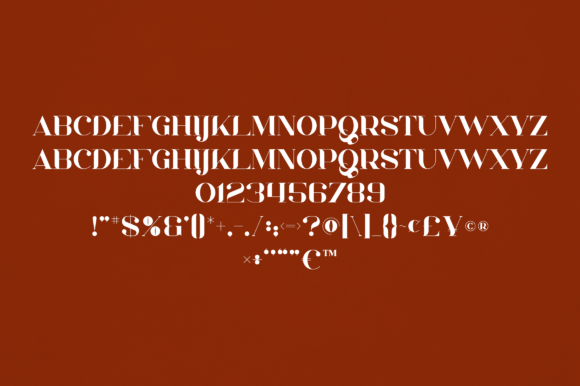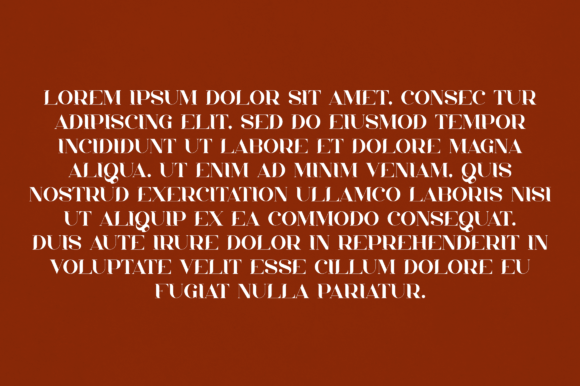
Brea Font: Elevate Your Typography with Elegance and Versatility
Are you tired of using the same old fonts for your design projects? Look no further than the Brea Font, a stunning and versatile typeface that will take your typography to the next level. With its elegant and refined aesthetic, Brea is perfect for designers and crafters looking to add a touch of sophistication to their work.
What Makes Brea Font So Special?
Brea is an elegant and versatile font that will make your typography truly unique. Its refined lines and curves make it perfect for a wide range of design applications, from logos and branding to headlines and plain text. Whether you’re working on a branding project, home-ware design, product packaging, or magazine header, Brea is the perfect choice.
Key Features of Brea Font
- Elegant and Refined Aesthetic: Brea’s sophisticated design makes it perfect for high-end branding and luxury goods.
- Versatile: Use Brea for a wide range of design applications, from logos and headlines to plain text and body copy.
- Unique and Distinctive: Stand out from the crowd with Brea’s distinctive and eye-catching design.
- Easy to Read: Despite its elegant aesthetic, Brea is highly legible and easy to read, making it perfect for body copy and long-form text.
Brea is perfect for designers and crafters looking to add a touch of elegance and sophistication to their work. Whether you’re working on a client project or creating something for your own portfolio, Brea is a great choice. Its versatility and legibility make it perfect for a wide range of design applications, from:
- Branding Projects: Use Brea to create stunning logos, business cards, and letterheads that will help your clients stand out.
- Home-Ware Designs: Add a touch of elegance to your home-ware designs with Brea’s refined and sophisticated aesthetic.
- Product Packaging: Use Brea to create eye-catching and distinctive packaging that will help your products stand out on store shelves.
- Magazine Headers: Add a touch of sophistication to your magazine headers with Brea’s elegant and refined design.
Stylish Text Overlay
Brea is also perfect for use as a stylish text overlay to any background image. Its elegant aesthetic and high legibility make it easy to read, even over complex and busy backgrounds. Use Brea to add a touch of sophistication to your:
- Social Media Graphics: Add a touch of elegance to your social media graphics with Brea’s refined and sophisticated aesthetic.
- Web Design: Use Brea to create stunning text overlays for your website, adding a touch of sophistication to your design.
- Print Design: Add a touch of elegance to your print designs with Brea’s elegant and refined aesthetic.
In conclusion, Brea Font is a stunning and versatile typeface that will elevate your typography to the next level. Its elegant and refined aesthetic, combined with its versatility and legibility, make it perfect for a wide range of design applications. Whether you’re a designer or crafter, Brea is a great choice for anyone looking to add a touch of sophistication to their work.